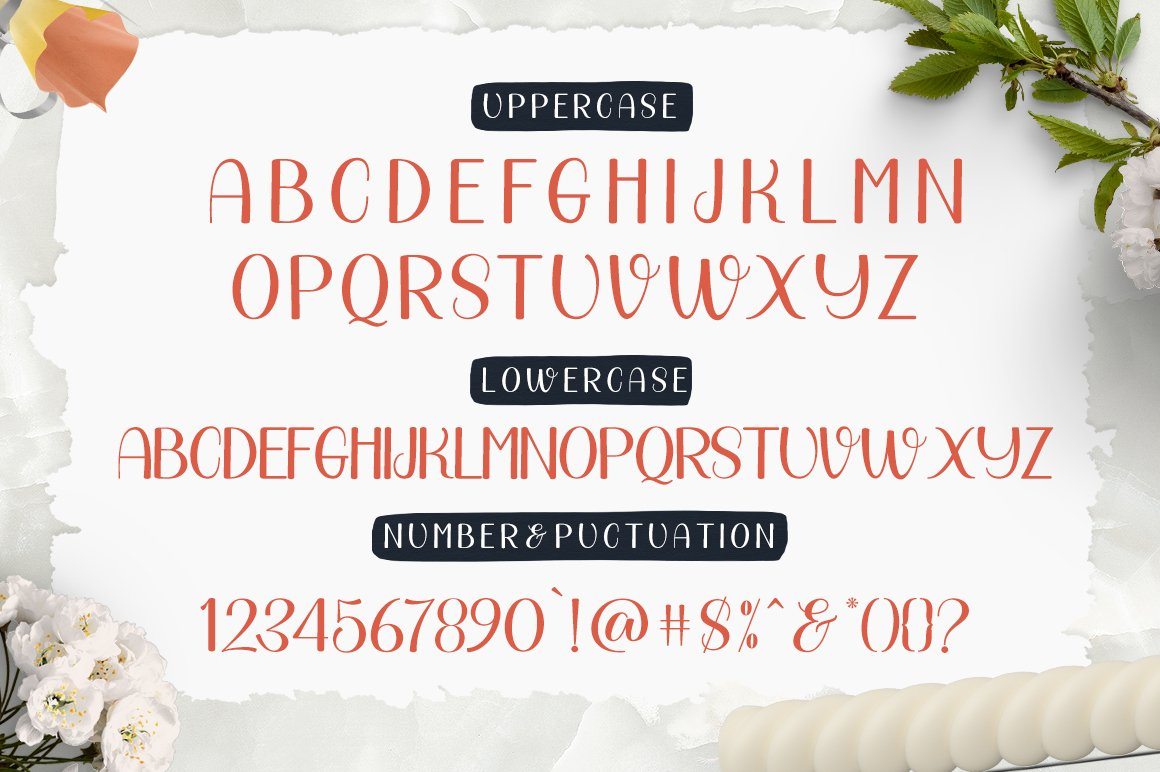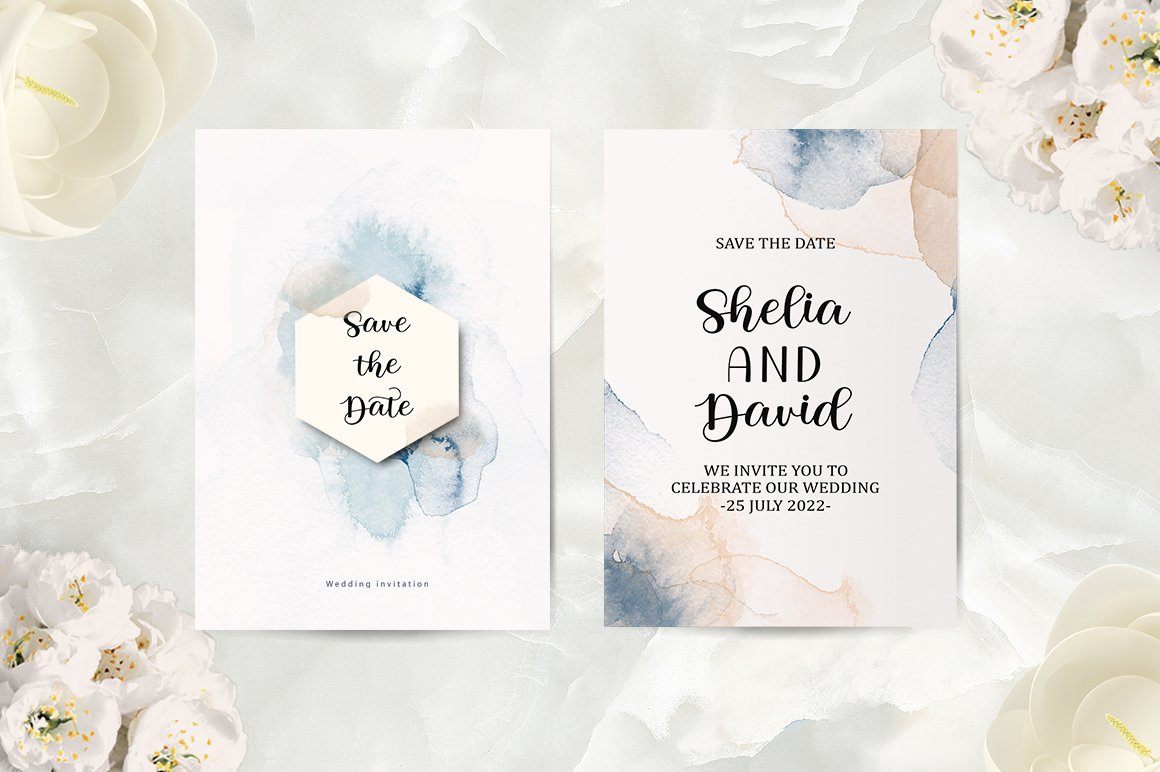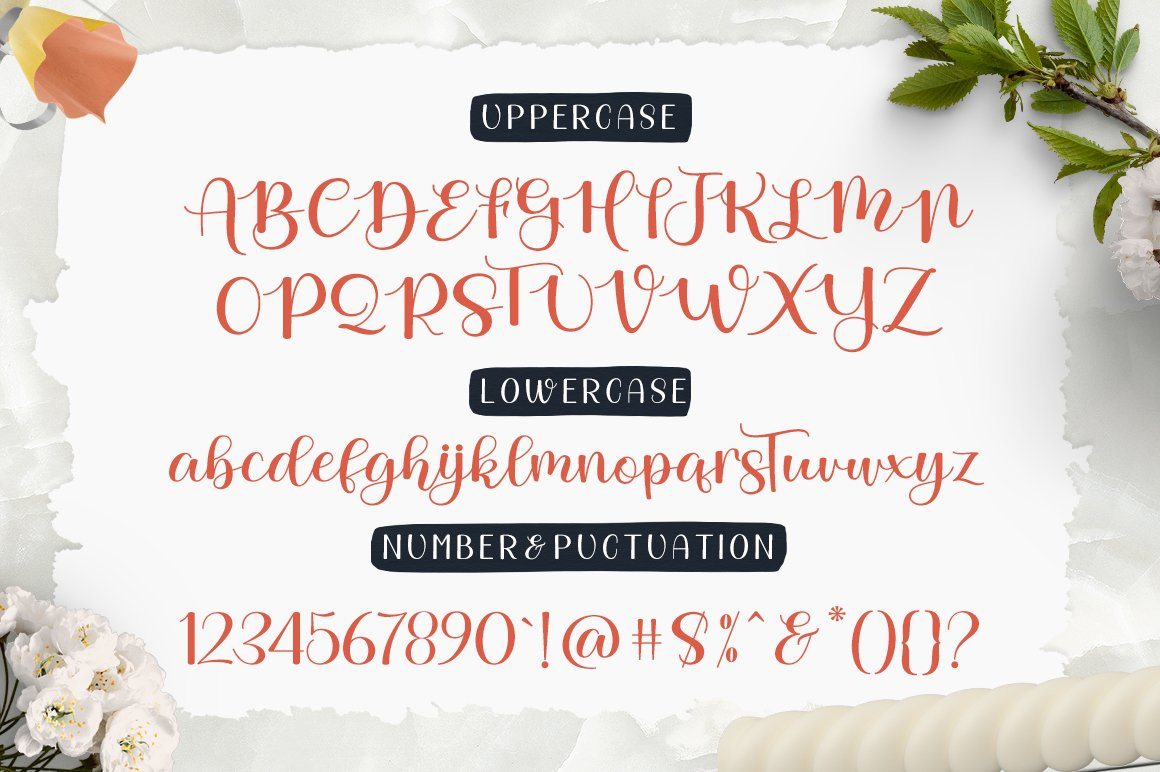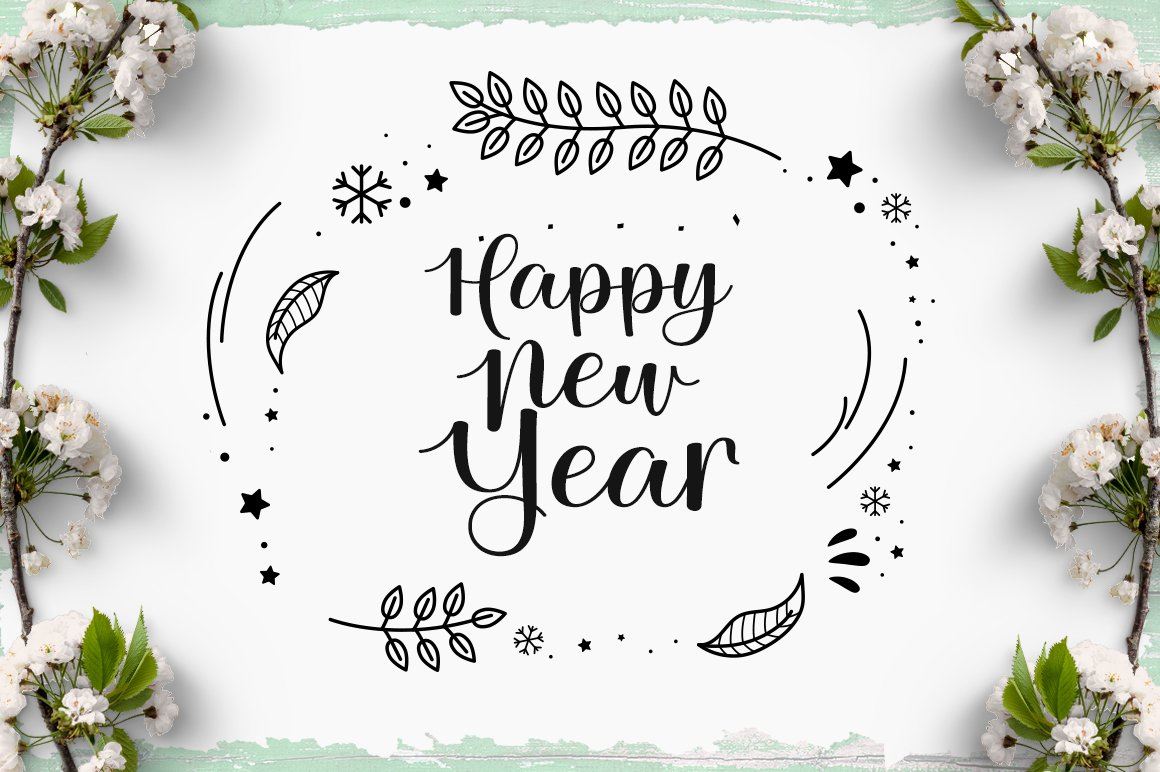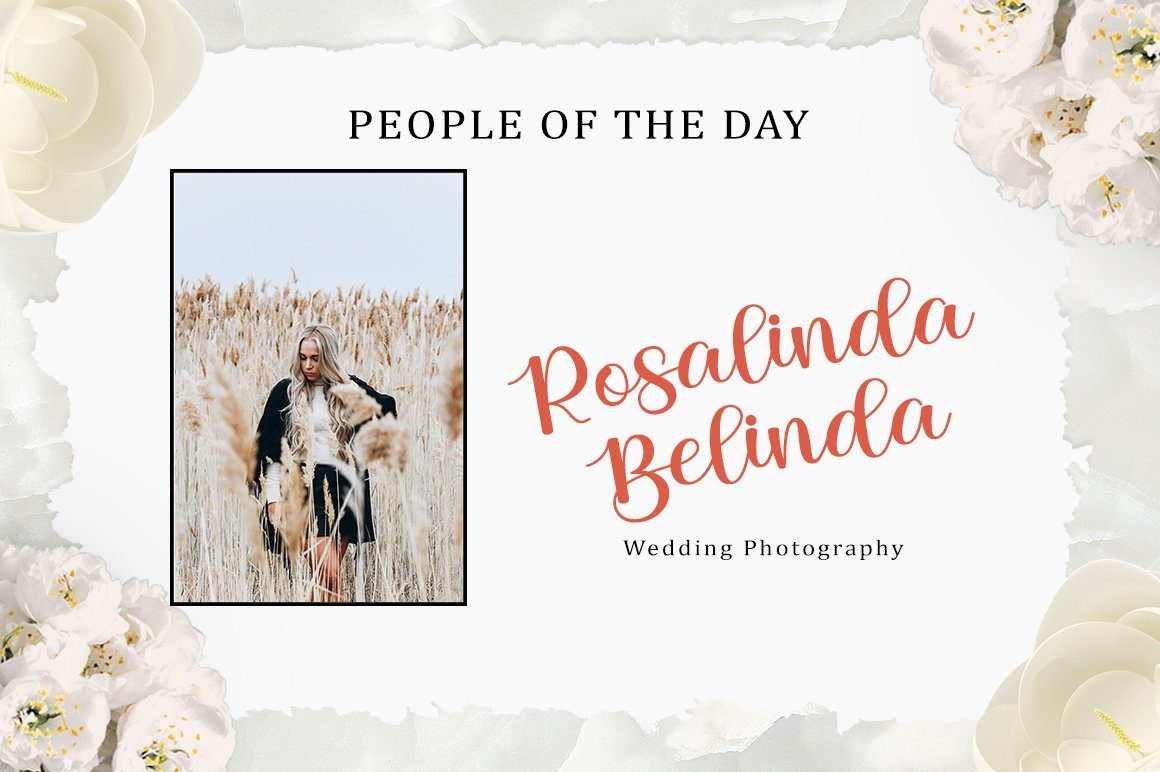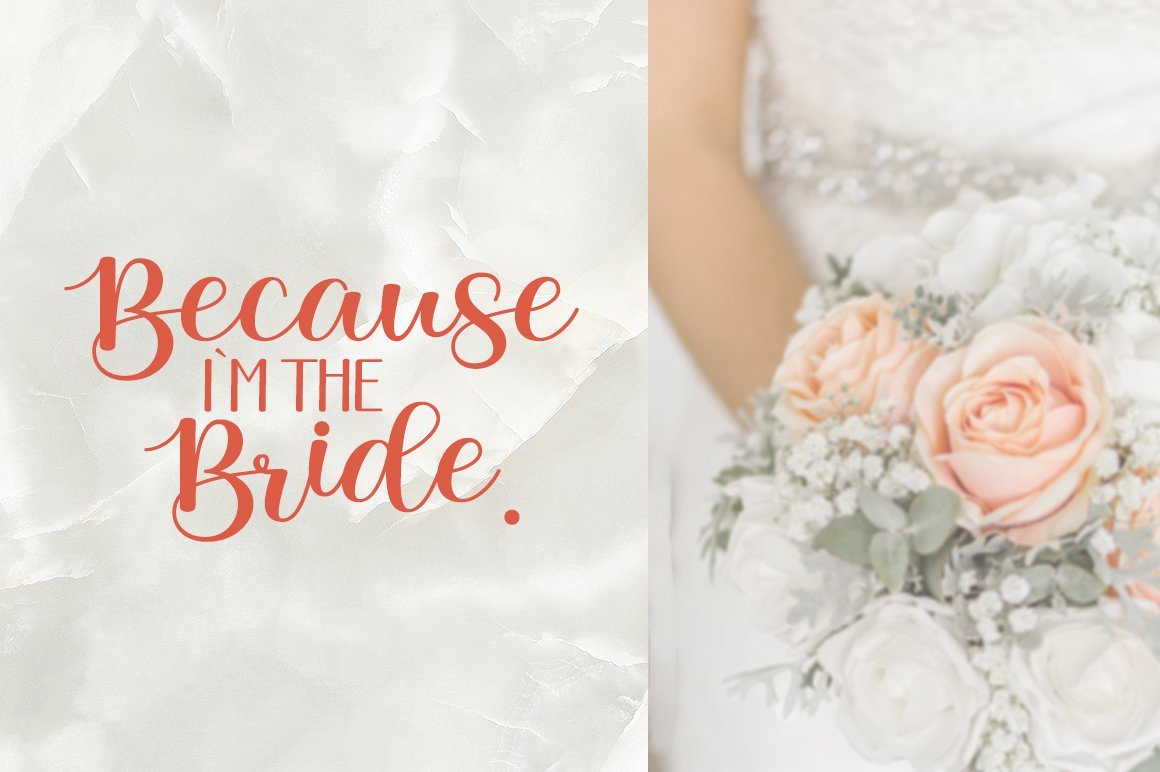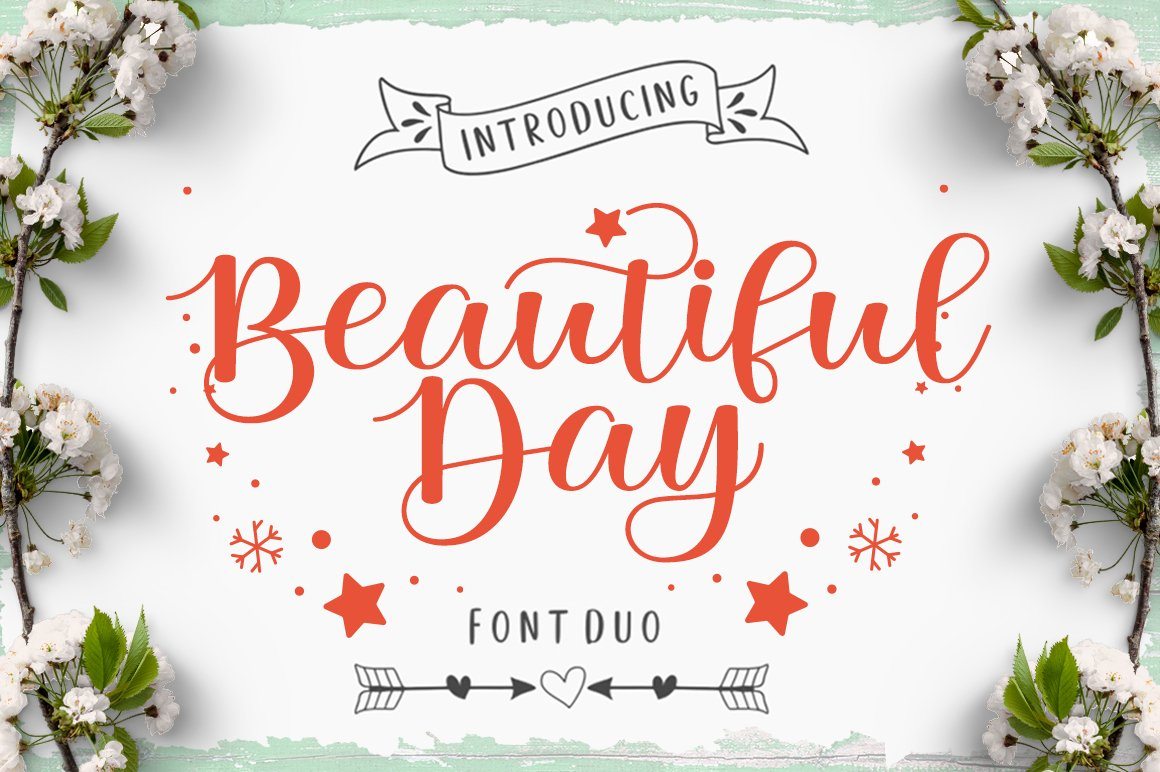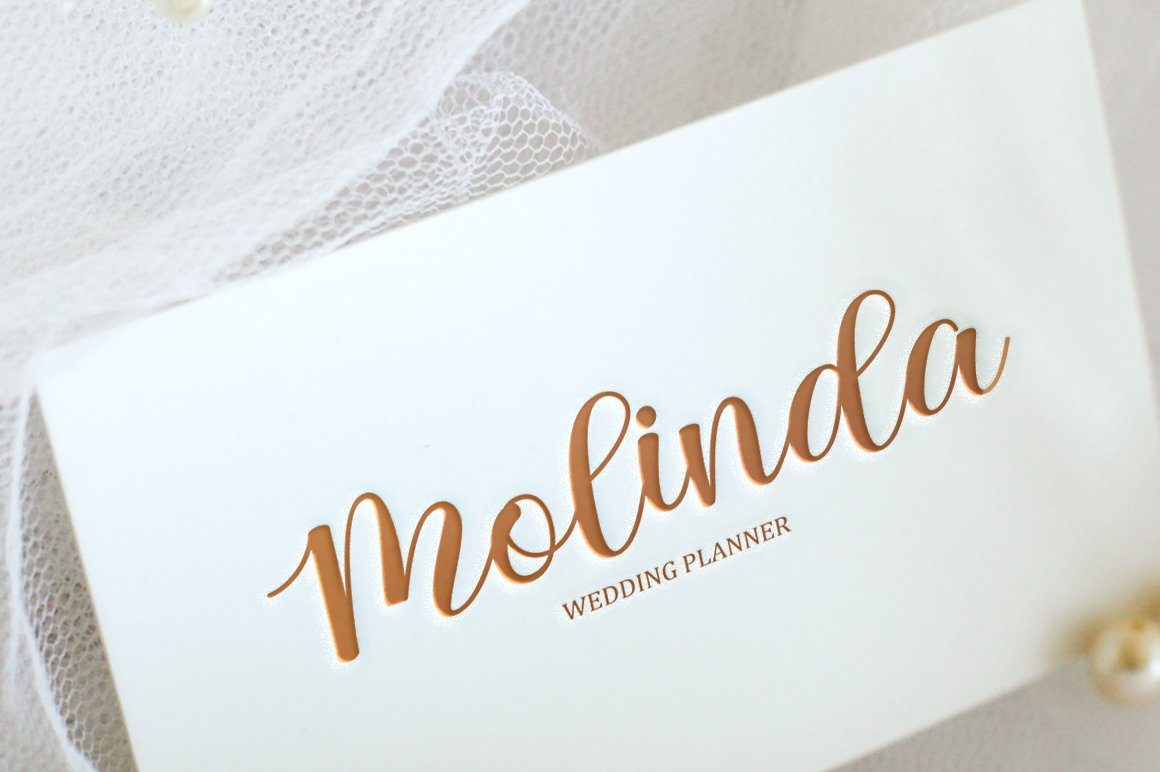
Beautiful Day Script- Font Duo
About Beautiful Day Script- Font Duo
Beautiful Day Script Font DUO is a new modern script font with an irregular base line. Trendy and feminine style. Beautiful Day Script looks beautiful in wedding invitations, thank-you cards, quotes, greeting cards, logos, business cards, and more. Perfect for use in ink or watercolors. Including initial letters and terminals, alternatives and support for many languages. Files include: Beautiful Day Script.OTF Beautiful Day Script.TTF Beautiful Day Sans.OTF Beautiful Day Sans.TTF To activate the OpenType Stylistic alternative, you need a program that supports OpenType features such as Adobe Illustrator CS, Adobe Indesign & CorelDraw X6-X7, Microsoft Word 2010 or newer versions. There are additional ways to access alternatives / swash, using Character Map (Windows), Nexus Fonts (Windows), Font Books (Mac) or software programs such as PopChar (for Windows and Mac). How to access all alternative characters: https: //www.youtube.com/watch? v = Go9vacoYmBw https: //www.youtube.com/watch? v = XzwjMkbB-wQ Need help or have questions, let me know. I am happy to help 🙂 Thank you & Congratulations on the Design!